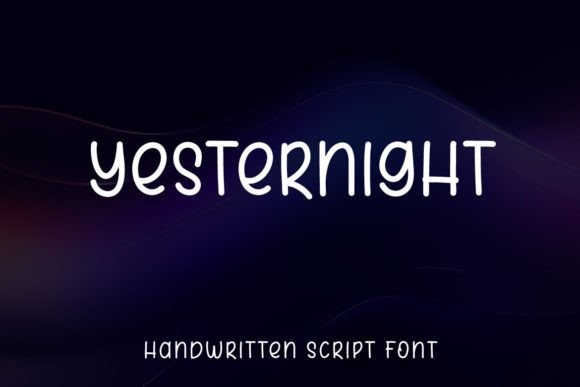
Unleash the Heartfelt Charm of Yesternight Font: Where Timeless Elegance Meets Modern Appeal
Journey into the realm of Yesternight Font, a captivating script font family that exudes warmth, playfulness, and a touch of nostalgia. Crafted with meticulous attention to detail by the talented Mightyfire, Yesternight is not just a font; it's an artistic expression waiting to be discovered.
With its graceful curves, whimsical strokes, and a hint of vintage allure, Yesternight is the perfect font for those seeking a unique and charming touch for their designs. From whimsical posters to heartfelt greeting cards, from elegant invitations to captivating social media posts, Yesternight's versatility knows no bounds.
Dive into the world of Yesternight and let your imagination soar. Its natural and unique style harmoniously blends the past and the present, evoking a sense of familiarity and comfort while simultaneously radiating a modern and refreshing vibe. Whether you're aiming for a classic or contemporary aesthetic, Yesternight has the power to transform your designs into captivating visual masterpieces.
Step into the world of Yesternight and embrace the boundless possibilities that await you. Its user-friendly format makes it accessible to both seasoned designers and those just starting their creative journey. Experience the joy of effortless customization as you mold Yesternight into a reflection of your unique style and vision.
Unleash the enchanting allure of Yesternight Font today and embark on a creative odyssey that will leave you breathless. As your designs come to life, you'll realize that Yesternight is more than just a font; it's a timeless treasure that will add a touch of magic to every project you undertake.